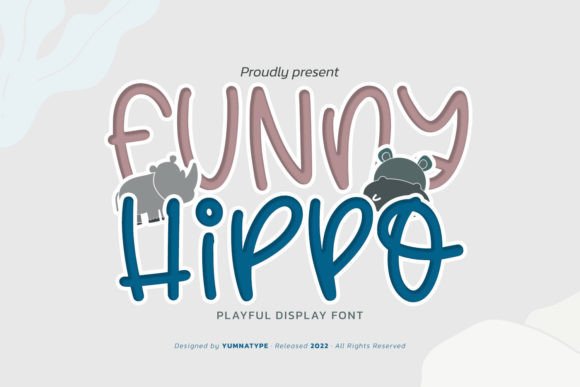
Introducing Funny Hippo Font, a captivating display font designed by Yumna_Type. Are you tired of ordinary fonts that lack personality and creativity? Say goodbye to boring designs and embrace the playful charm of Funny Hippo!
With its smooth, round, and curvy accents, Funny Hippo Font brings a touch of whimsy to your projects. Each letter is meticulously crafted with dynamic lines and angles, resulting in a truly unique and original look. Whether you're designing a logo, creating eye-catching headlines, or adding a fun twist to your social media posts, Funny Hippo Font is the perfect choice to make your content shine.
What sets Funny Hippo Font apart is its versatility. It seamlessly adapts to various design styles, making it suitable for a wide range of projects. From children's books to playful branding, this font effortlessly adds a dash of creativity and character. Let your imagination run wild as you explore the endless possibilities that Funny Hippo Font offers.
Not only does Funny Hippo Font capture attention, but it also evokes emotions. Its whimsical charm brings joy and delight to your audience, creating a memorable experience. Imagine the smiles and positive reactions when people encounter your designs adorned with Funny Hippo Font. Stand out from the crowd and leave a lasting impression.